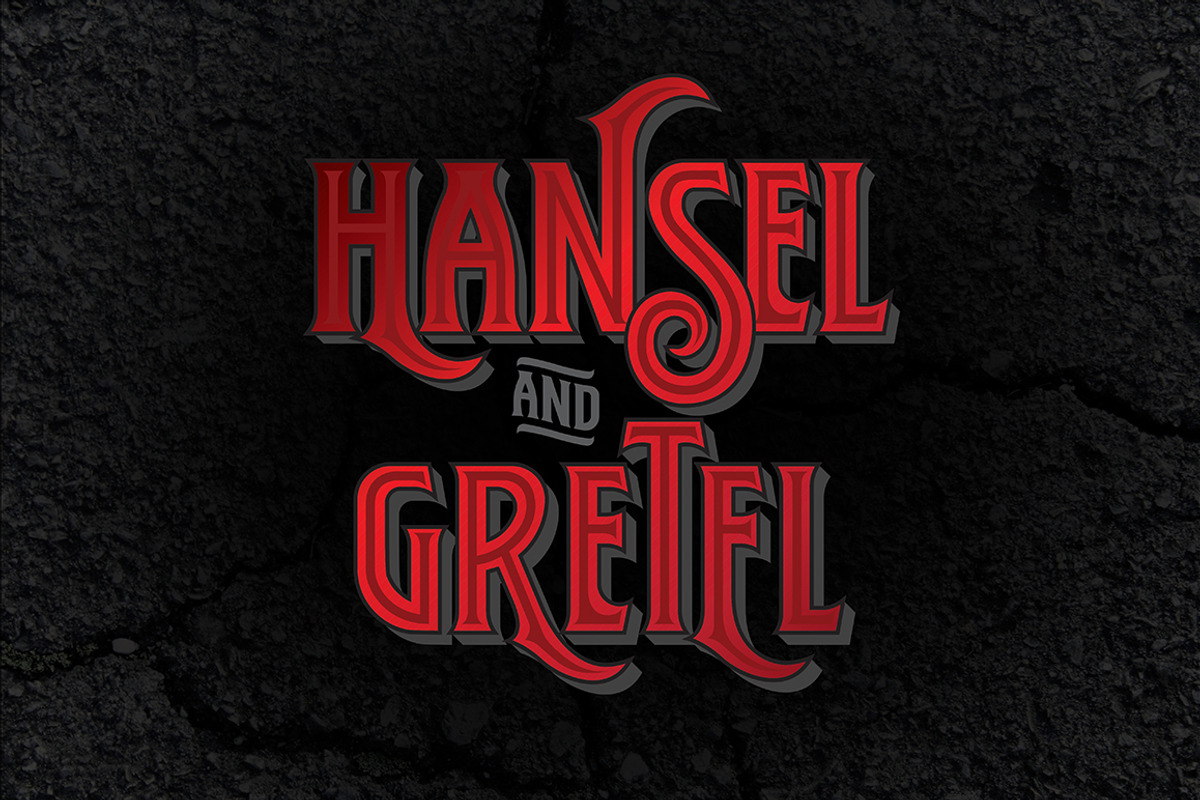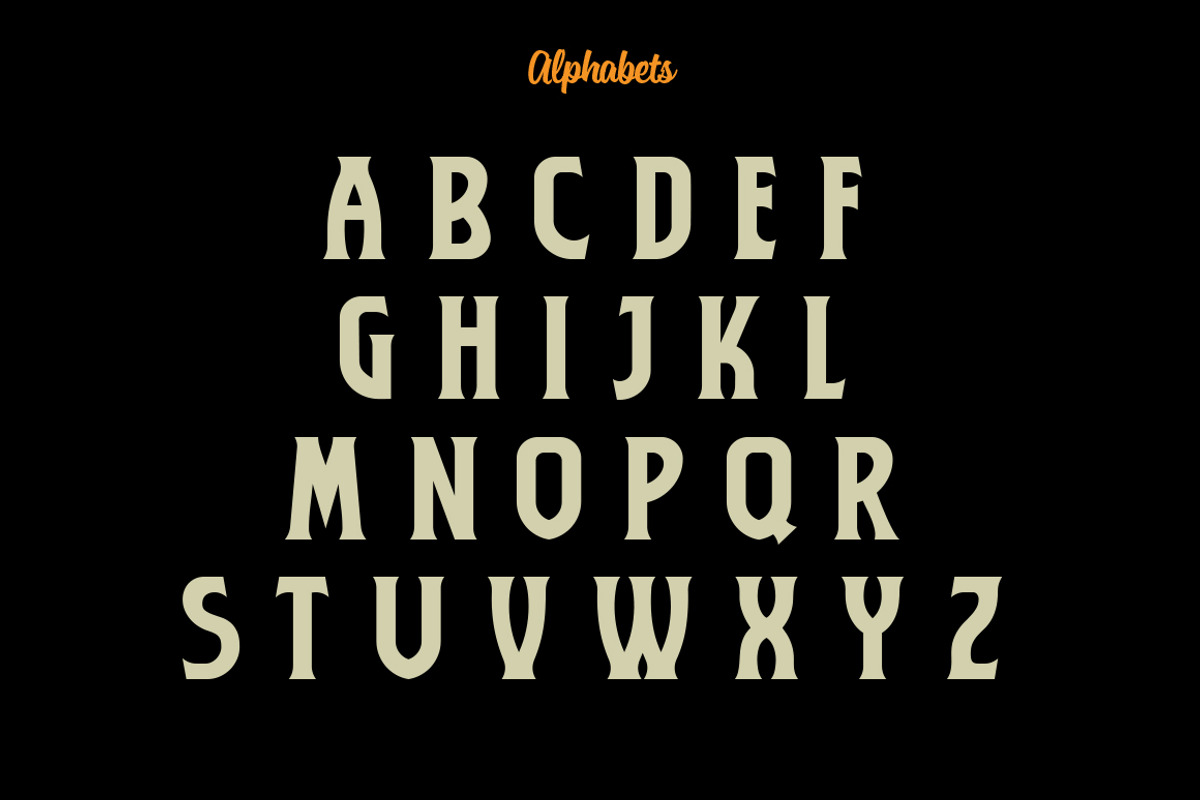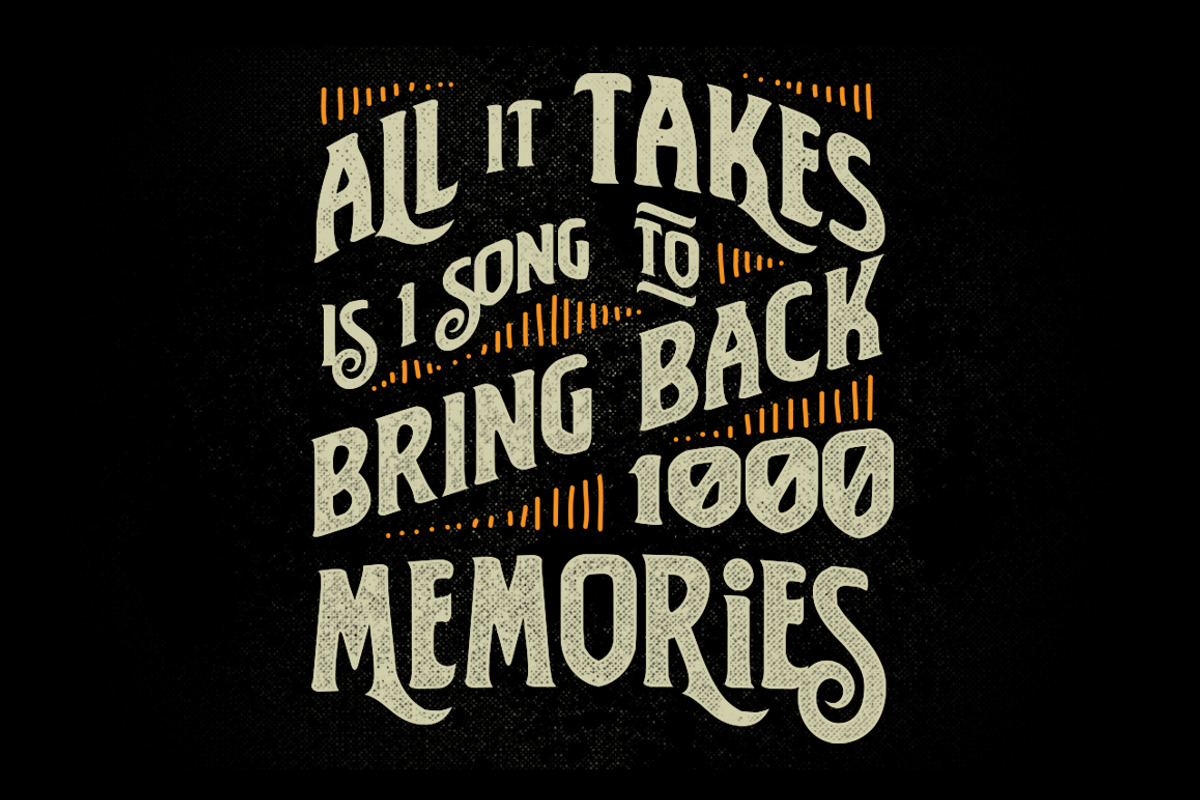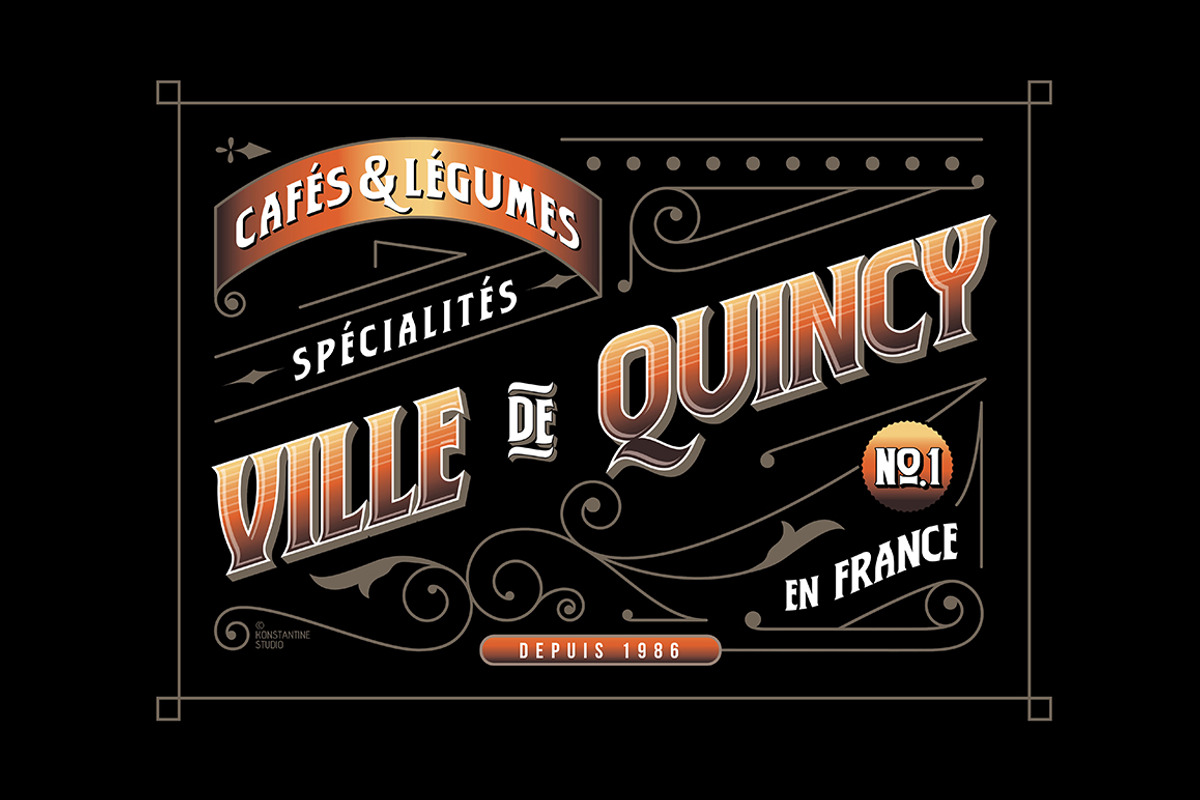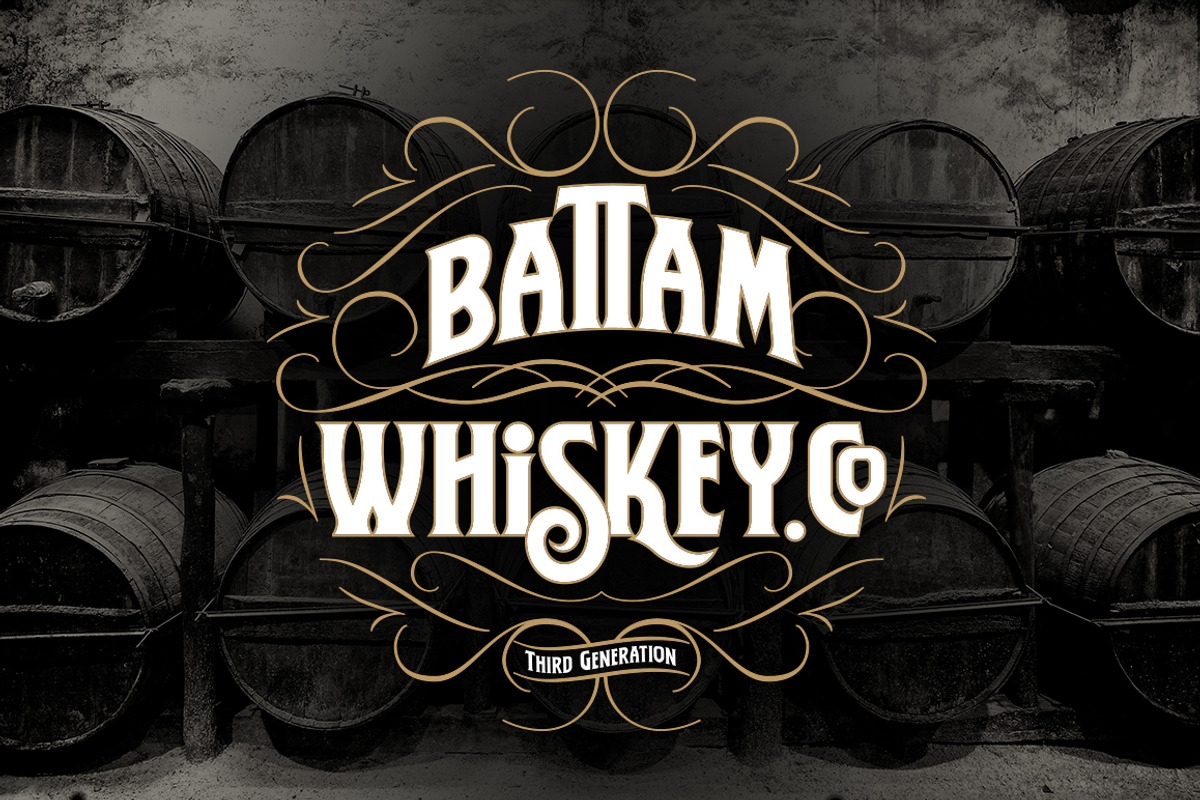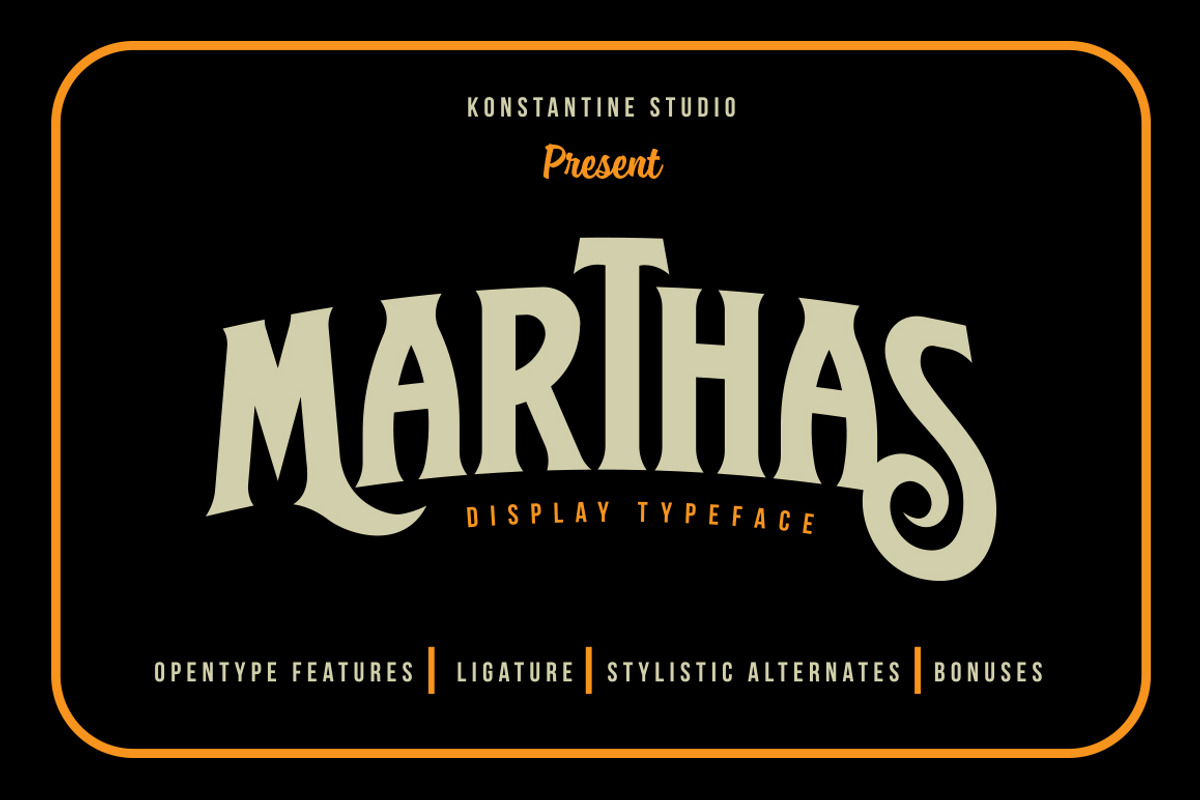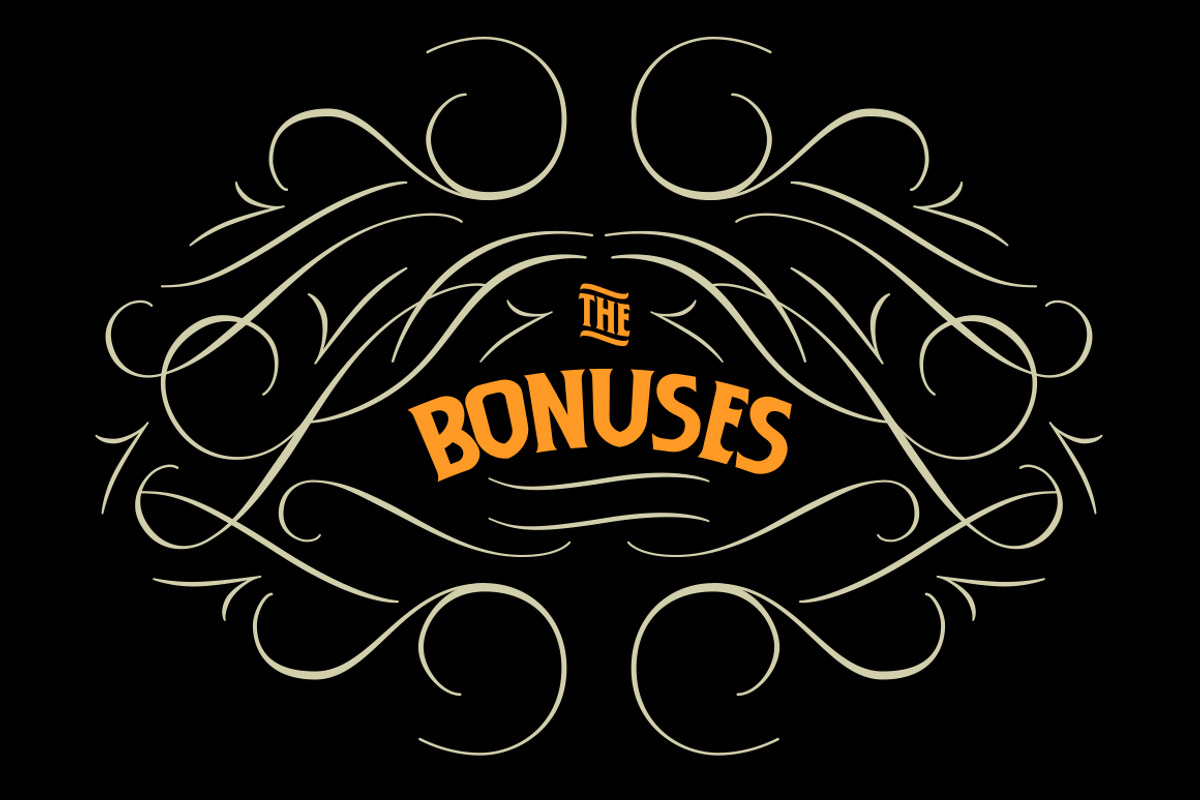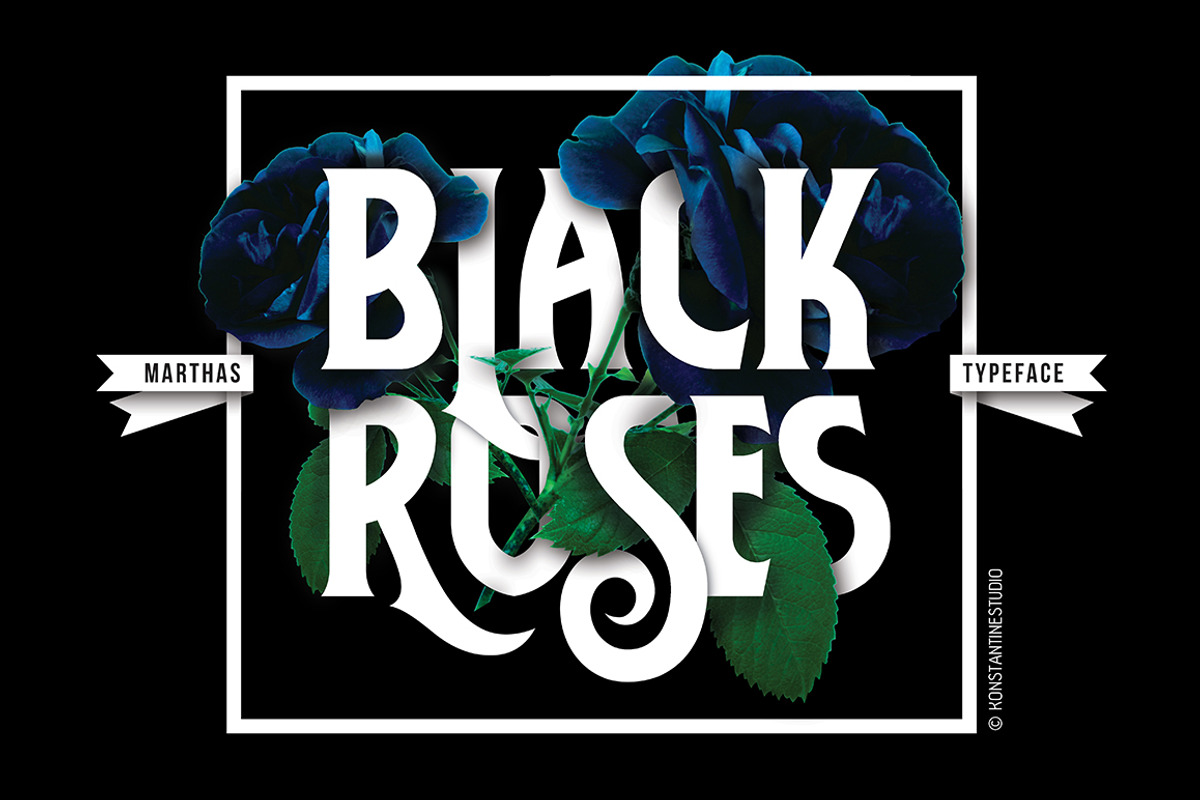
Marthas Vintage Branding font
Marthas Vintage Branding font by Konstantine Studio is a font selected for branding, posters, packaging, typography.
- It comes with a complete set of Uppercase, Lowercase, Numbers, Accents and Punctuations.
- Oh and calling all of typography and lettering junkie, the Stylistic Alternates, Ligatures, and Ornaments Bonuses are included as well to su
Why Marthas Vintage Branding font is worth a look
Marthas Vintage Branding font by Konstantine Studio fits naturally into Branding, posters, packaging, typography.